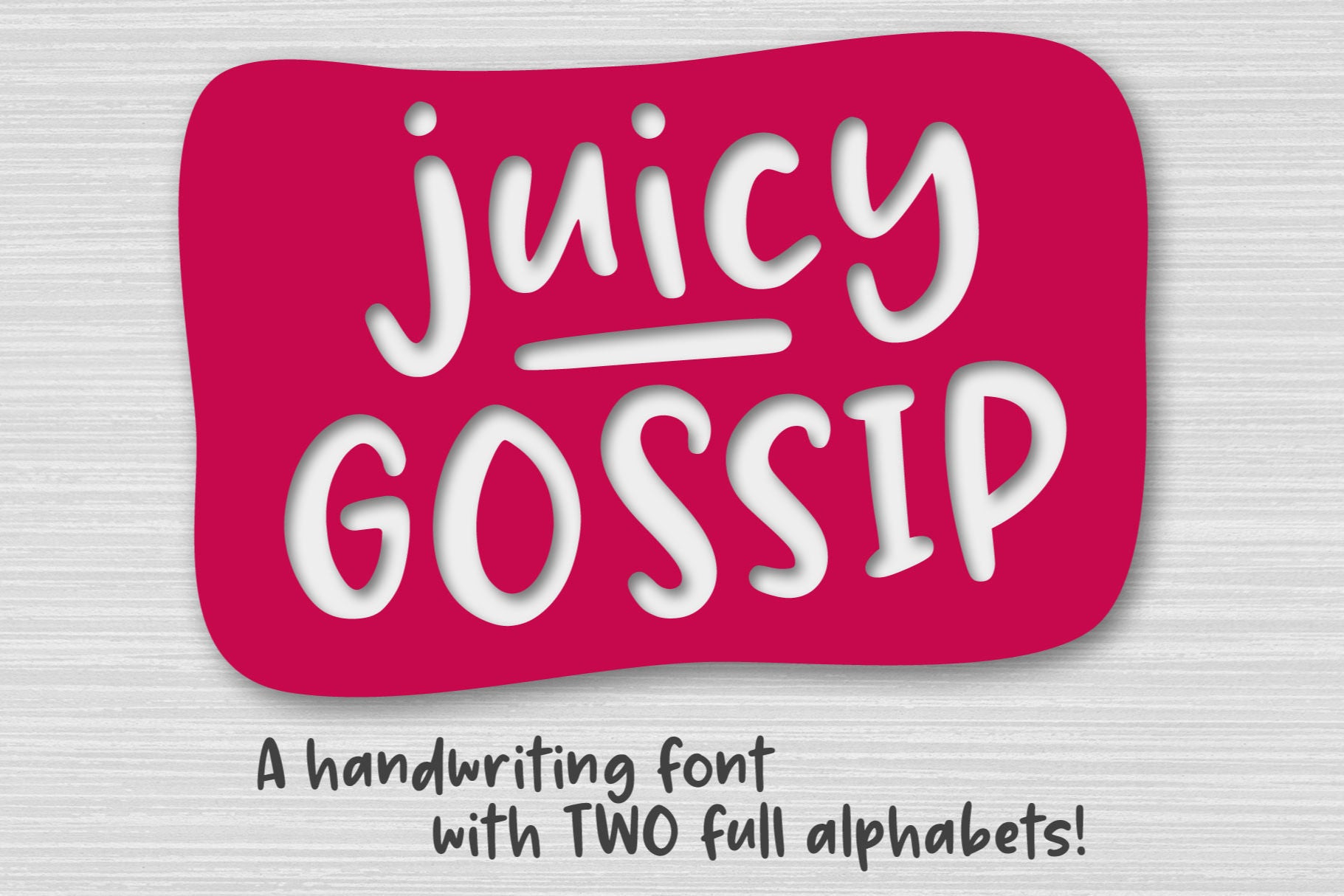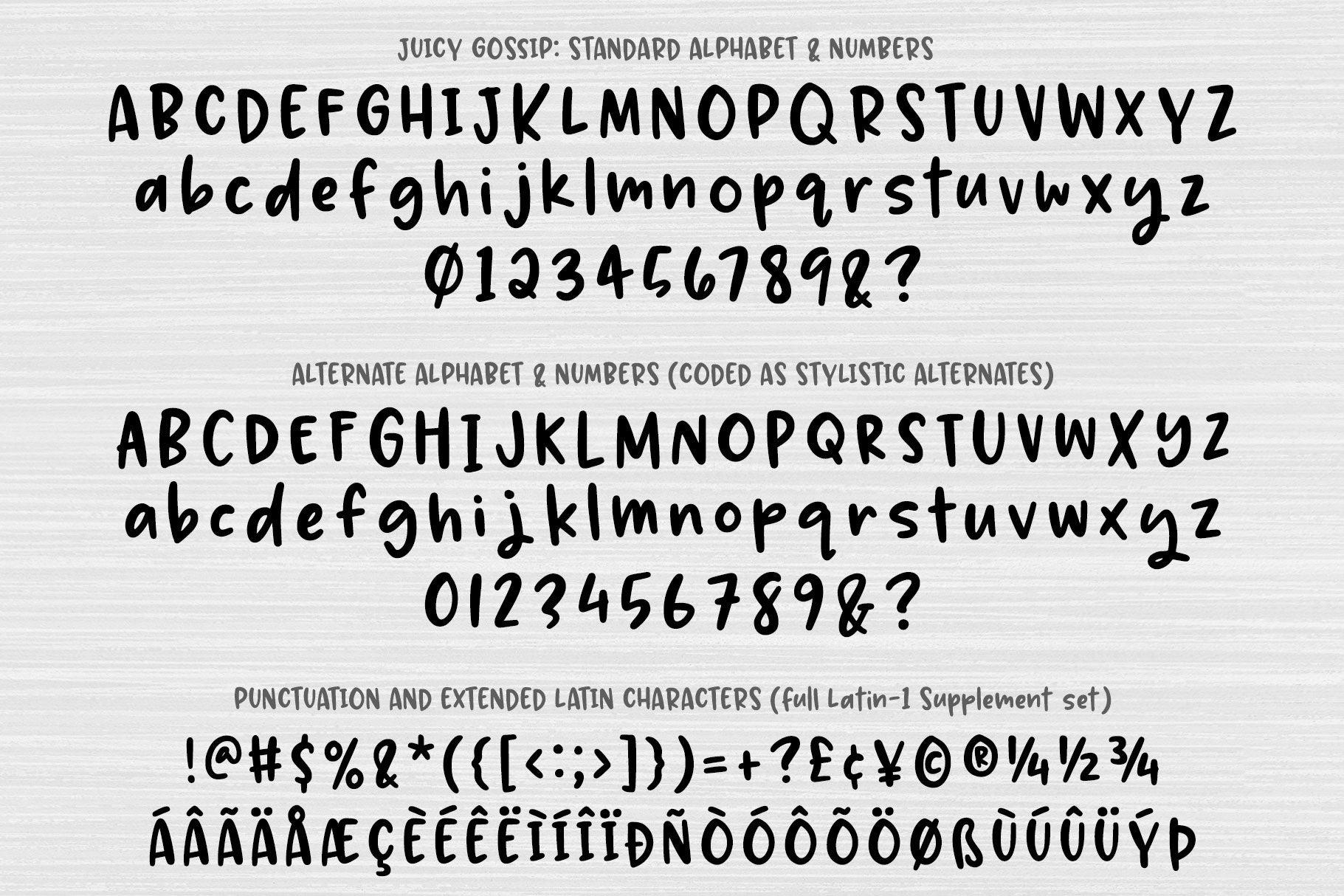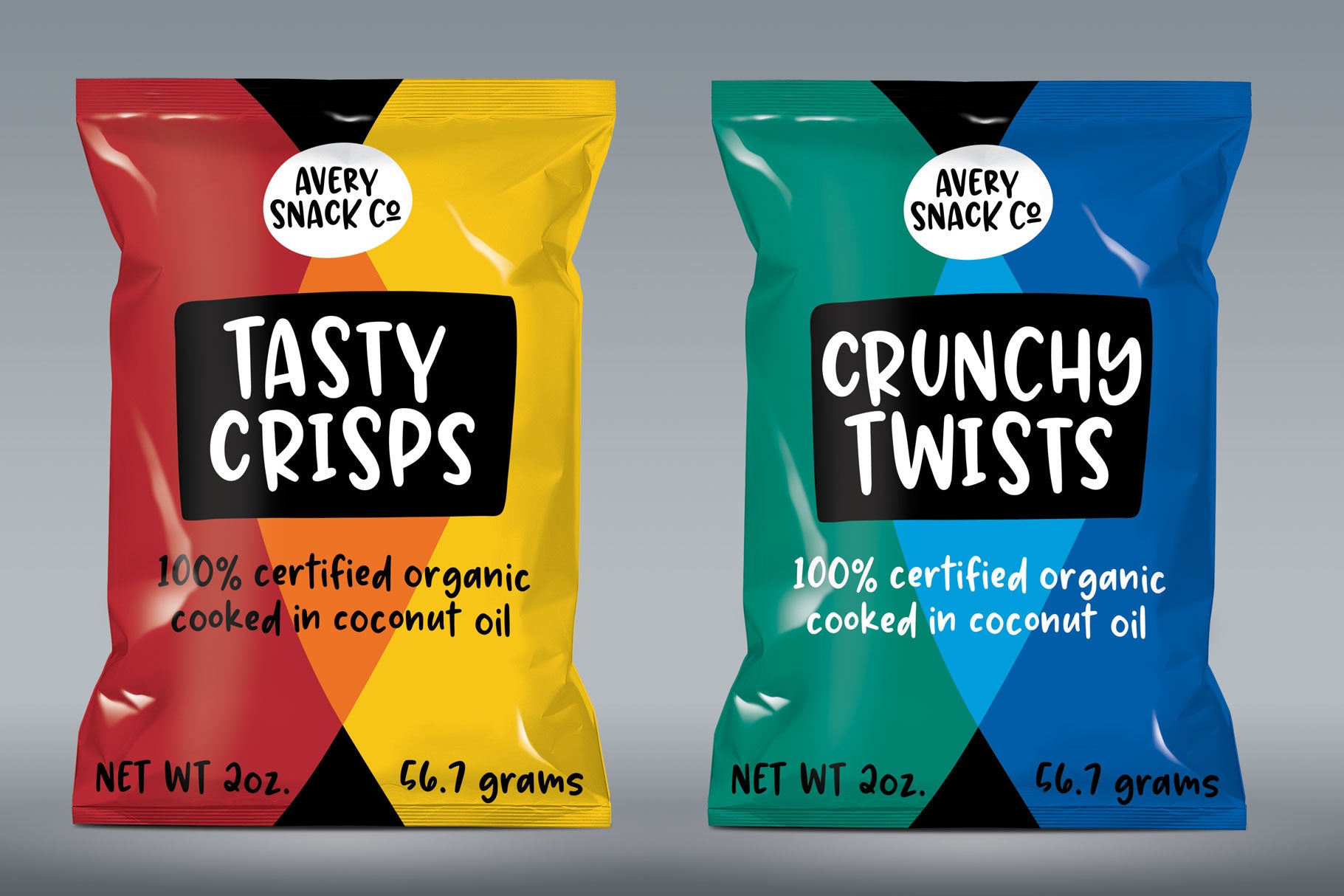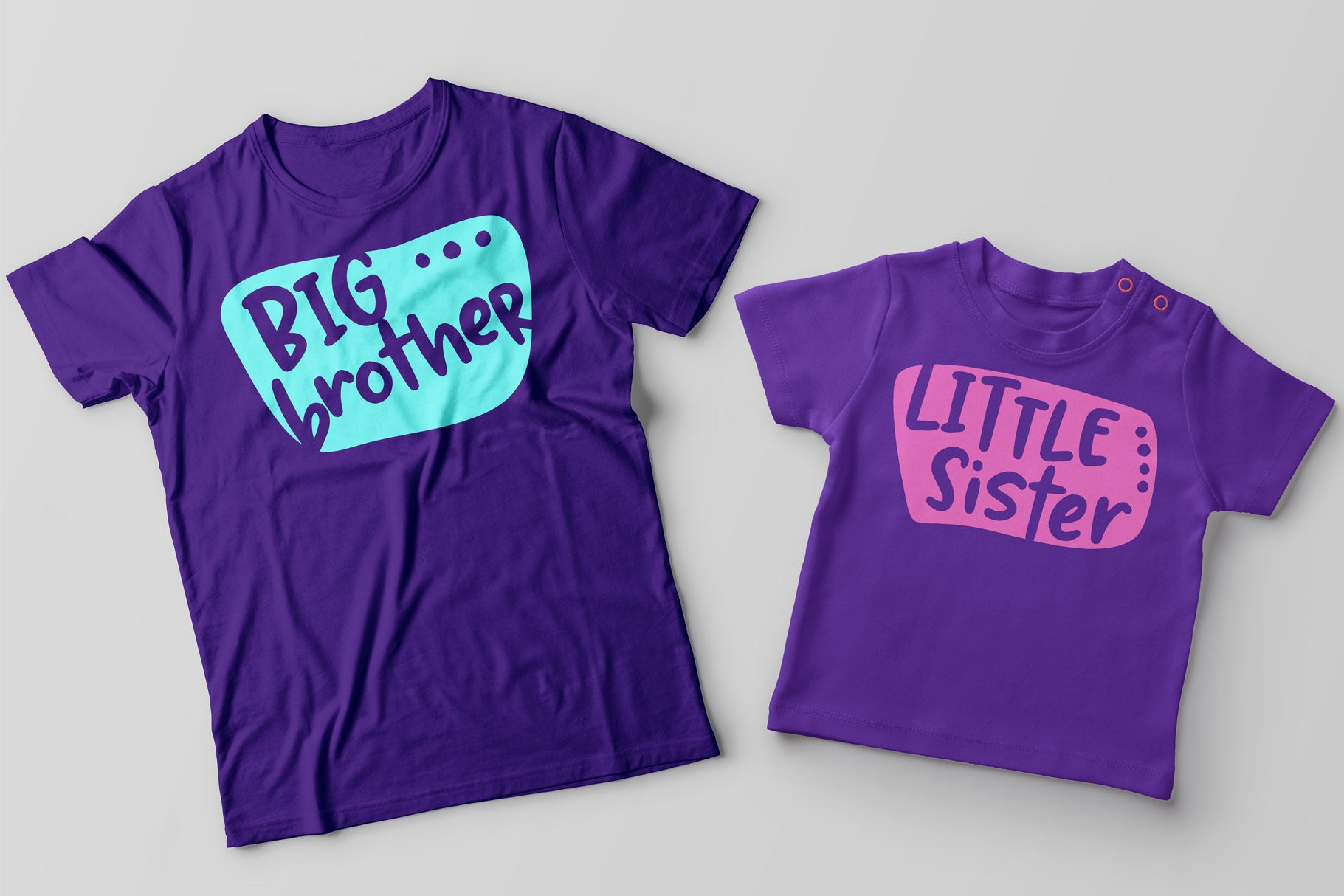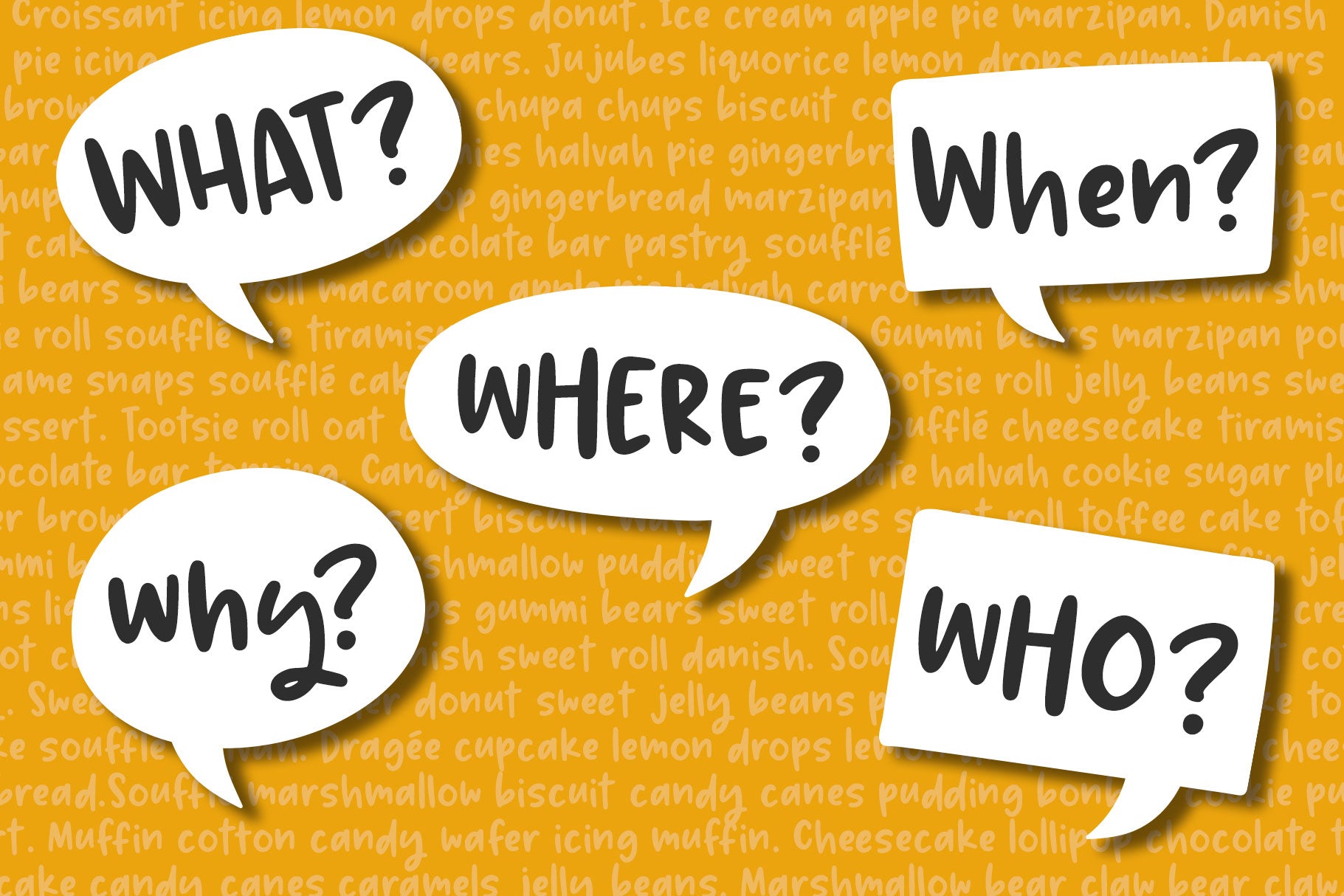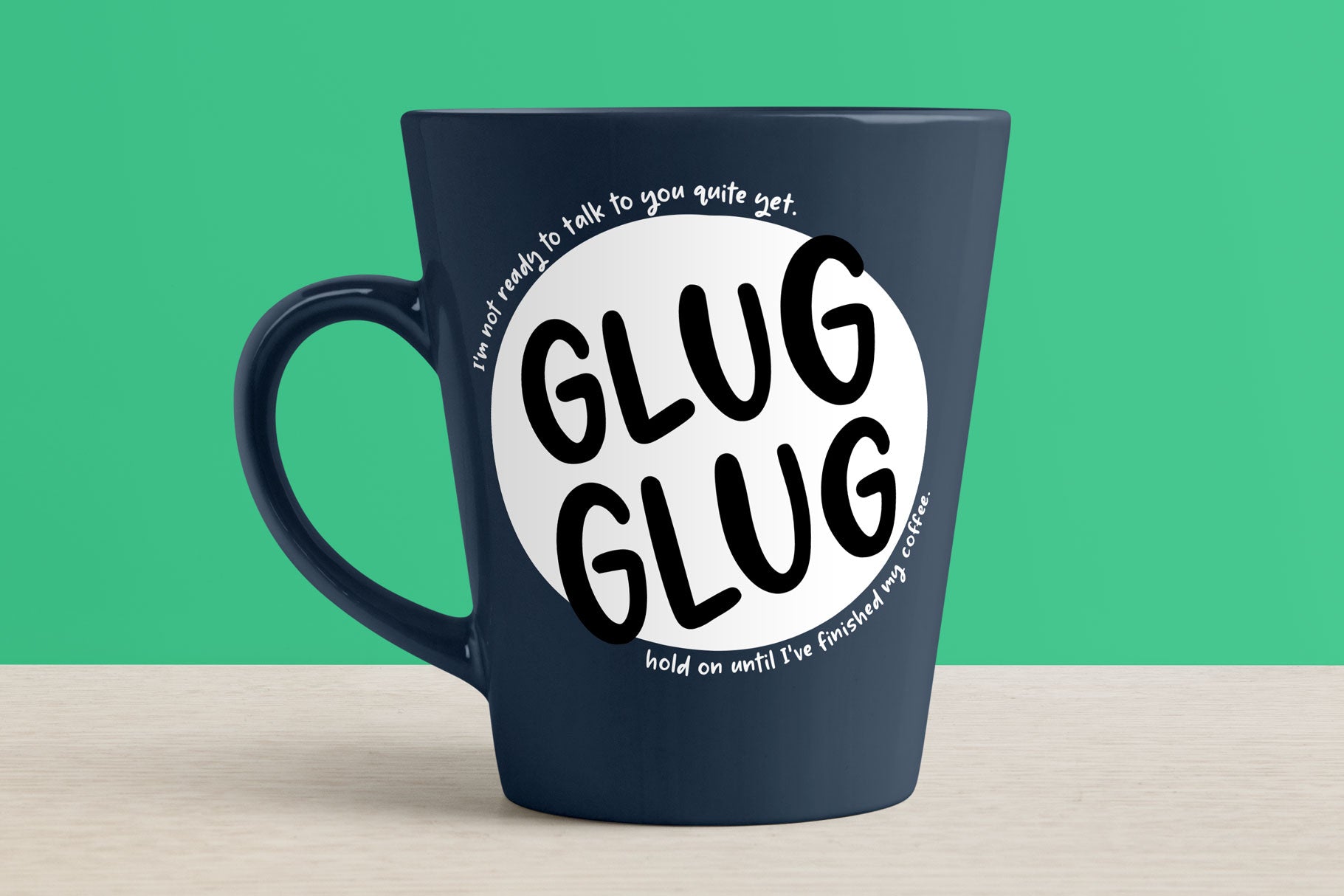
Say hello to Juicy Gossip, a fun handwriting font with two uppercase sets, two lowercase sets, and two sets of figures to help give your projects that hand-lettered feel!
With 64 alternates (26 uppercase, 26 lowercase, 10 numbers, plus the ampersand and question mark), plus 30 double-letter ligatures (15 uppercase, 15 lowercase), this font can lend a fun, bouncy, hand-crafted look to your logo, branding, design, cut file, print, or anything else you want to create!
Juicy Gossip also includes over 60 extended Latin characters, including the full Latin-1 Supplement set, to support English, Spanish, German, Italian, French, Portuguese, and more!